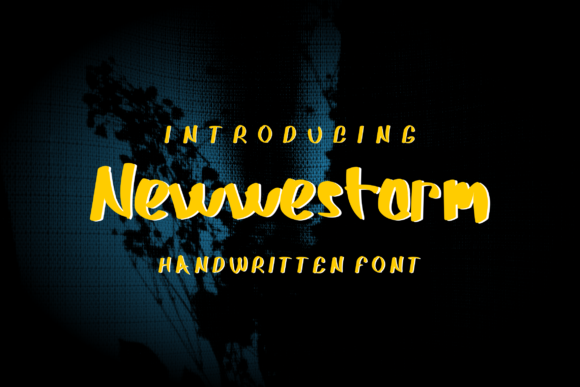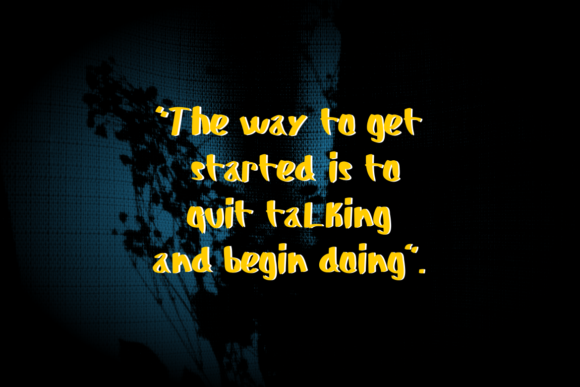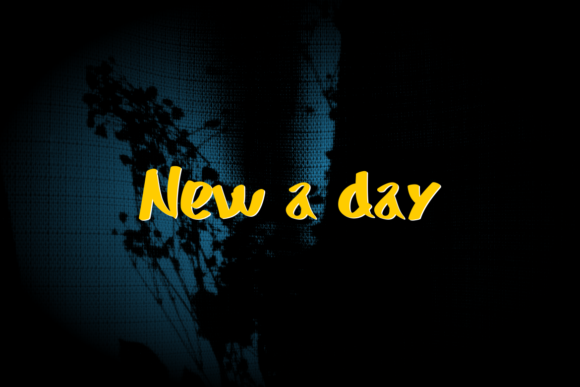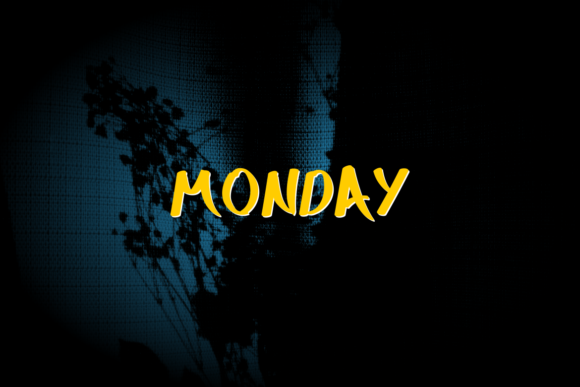
New Westorm Font
“New Westorm Font” is introduced as an original handwritten font, designed to offer versatility across a range of applications. Tailored for use in templates and presentations, books, gifts, packaging, name tags, and more, this font aims to bring a touch of authenticity and individuality to diverse design projects.
The originality of “New Westorm Font” is evident in its unique handwritten style. Crafted with a distinctive touch, each character contributes to an overall design that stands out. This font adds a personal and human element, making it well-suited for projects that value authenticity and a handcrafted feel.
In templates and presentations, “New Westorm Font” becomes a visual asset, introducing an original handwritten touch to your designs. Its uniqueness can enhance the overall aesthetic of digital or printed materials, making information more engaging and memorable.
For books, the handwritten charm of “New Westorm Font” offers a warm and inviting reading experience. Whether used for chapter headings, quotes, or body text, this font adds a personal touch to the layout, creating a connection with readers.
Gifts and packaging benefit from the originality of “New Westorm Font.” Applied to gift tags, labels, or product packaging, the font imparts a personalized and handcrafted feel. It becomes a thoughtful choice for conveying a sense of care and individuality in gift-giving.
Name tags and personal branding materials take on a unique character with the inclusion of “New Westorm Font.” Its original handwritten style ensures that names and titles stand out, leaving a lasting impression. This font becomes a key element in creating memorable and distinctive personal branding.
In essence, “New Westorm Font” transcends the boundaries of a typical font; it becomes a design companion that brings originality and a personal touch to your creative endeavors. Whether used for templates and presentations, books, gifts, packaging, name tags, or any project that calls for an authentic handwritten aesthetic, this font stands ready to elevate your designs. Embrace the distinctive charm of “New Westorm Font” and experience the impact it brings to your visual storytelling.